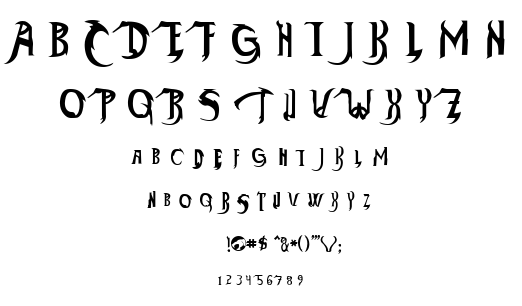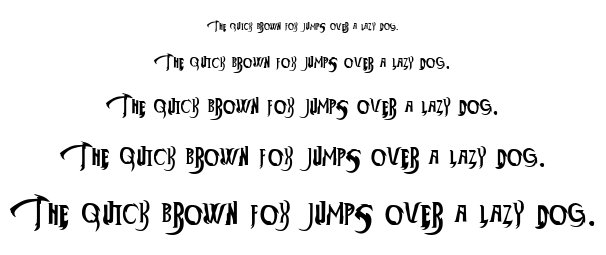
Based on the Childrens TV show of the same name from the 1980’s…Check out the 2011 remake on Saturday @ 11am… ThunderCats-Ho!
00A1- Panthro, 00A2- Cheetara, 00A3- Tigra, 00A4- Lion-O, 00A5- WilyKit, 00A6- WilyKat, 00A7- Snarf, 20AC- Mumm-Ra,
008A(dieresis)- Sight beyond sight
2202(bullet)- Eye of Thundera
2020(dagger)- Lion-O’s Sword
0060(grave) – Mumm-Ra’s Logo
0040(@)- ThunderCat’s Logo
00B5(µ)- Ca
00B6(¶)- Th
00B7(•)Logo’T
02DC(tilda)-Logo’Th